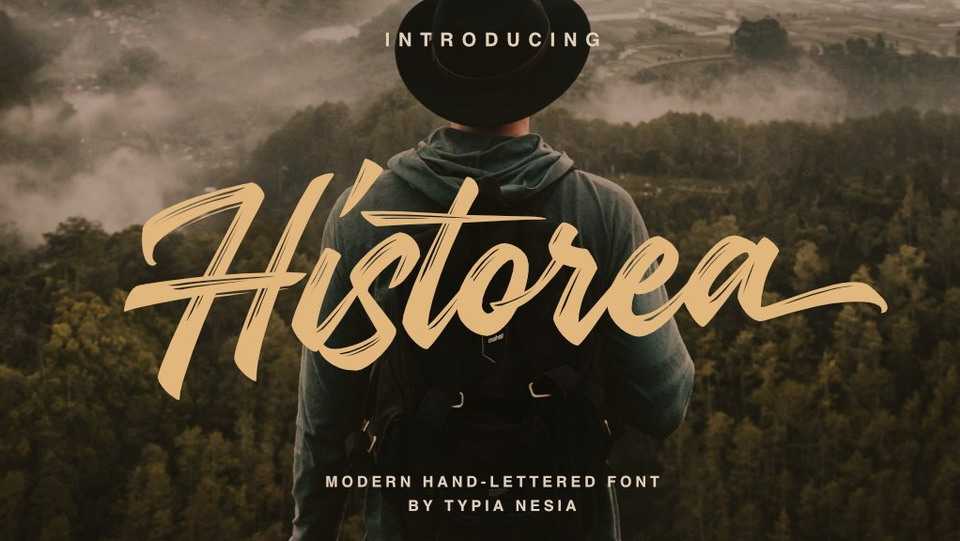
Download Historea font, a modern and natural hand lettered font. Work great for any design needs : logo, branding, modern advertising design, logos, poster quote, book / cover title, editorial design, website / blog, card, custom mug, pillow, t-shirts, and any hand-lettered needs.